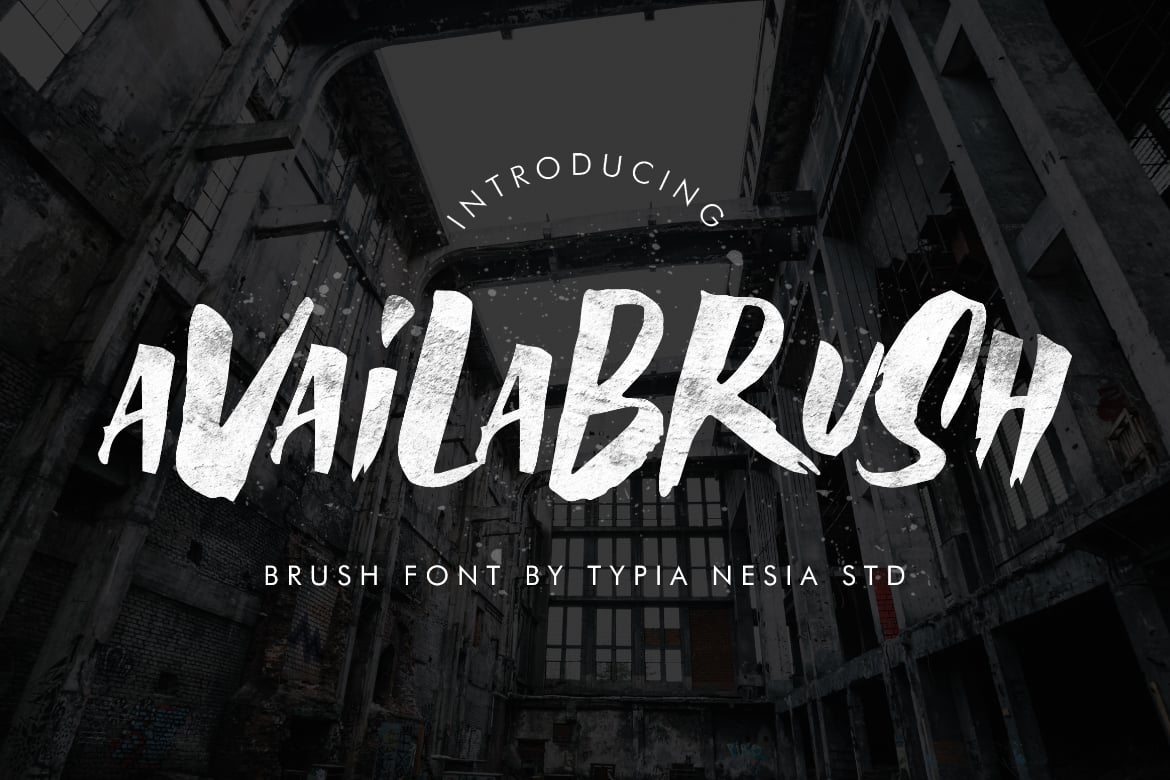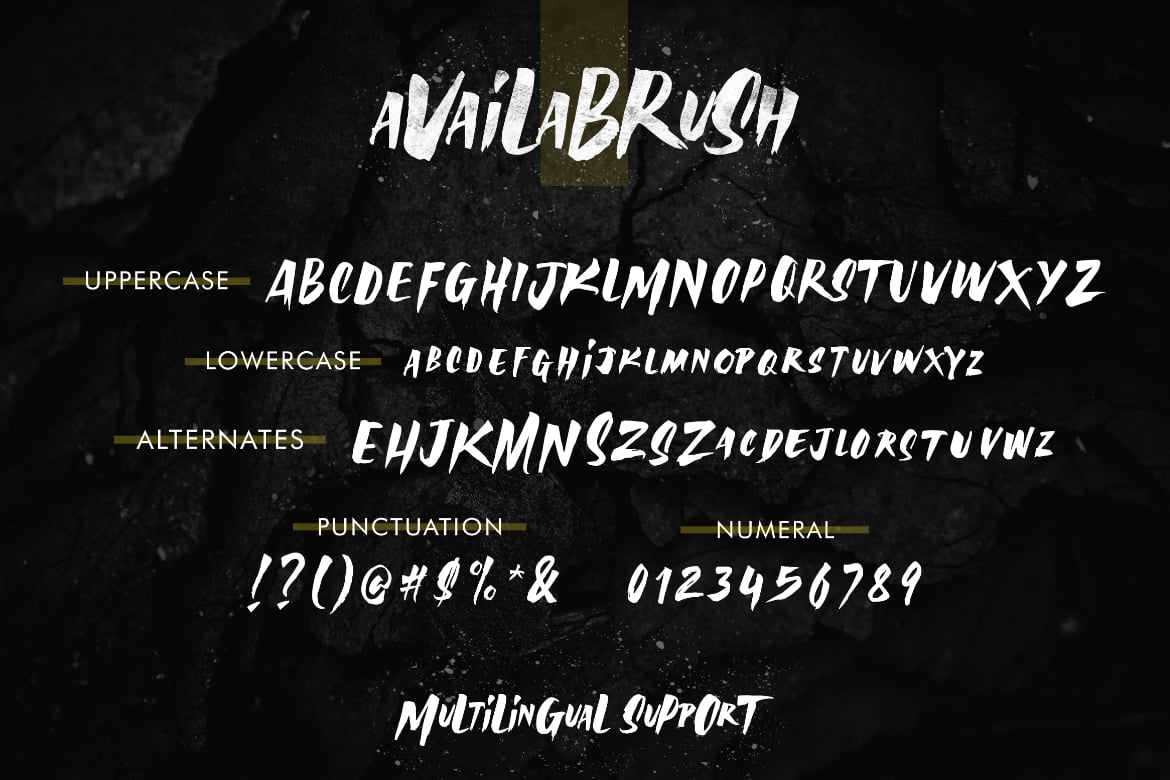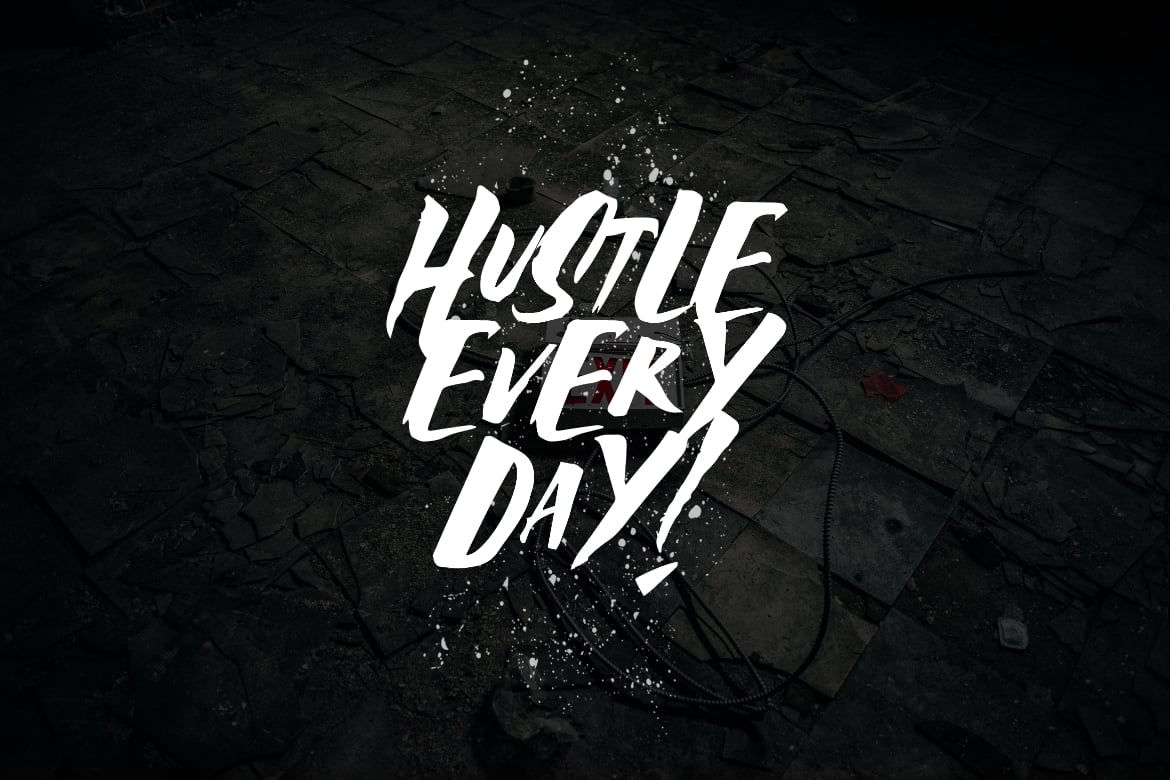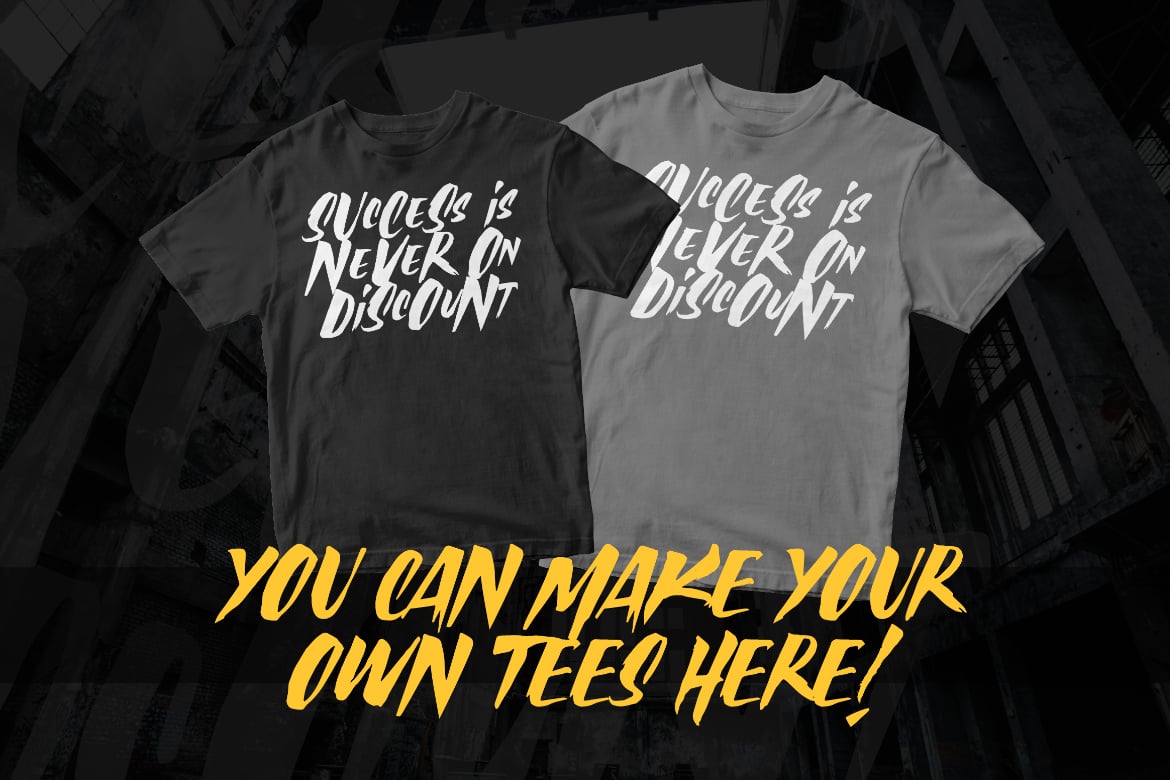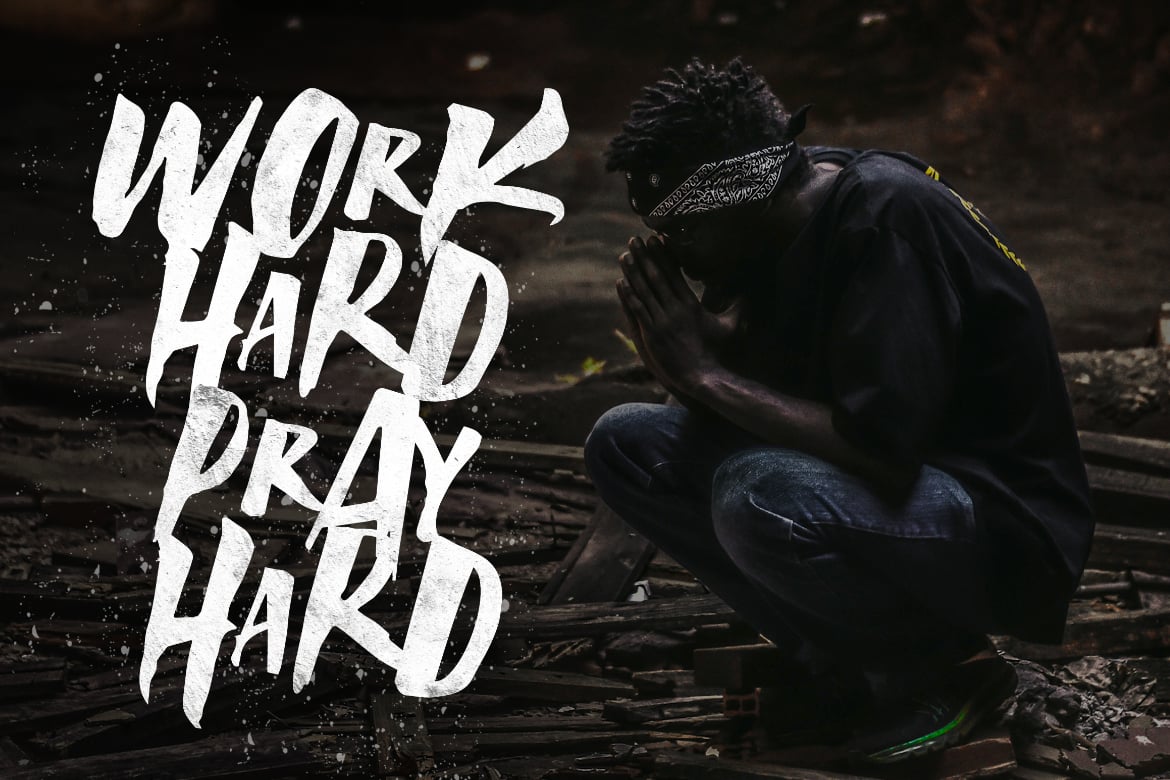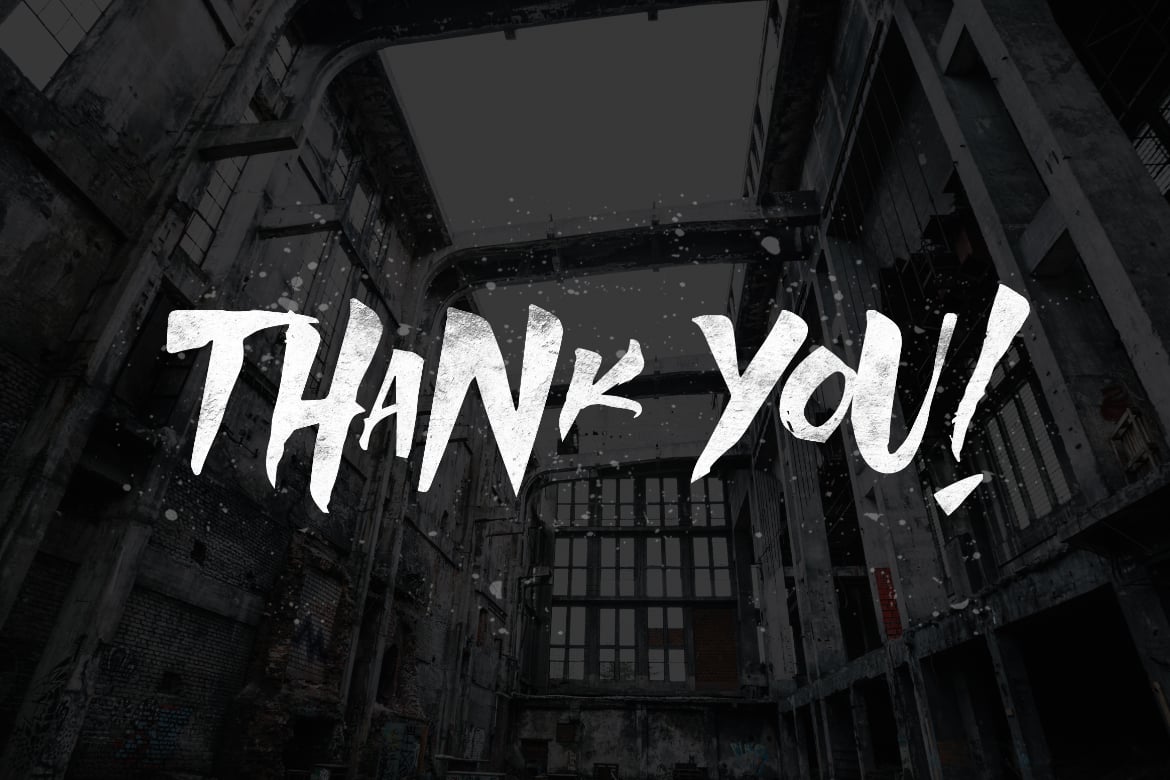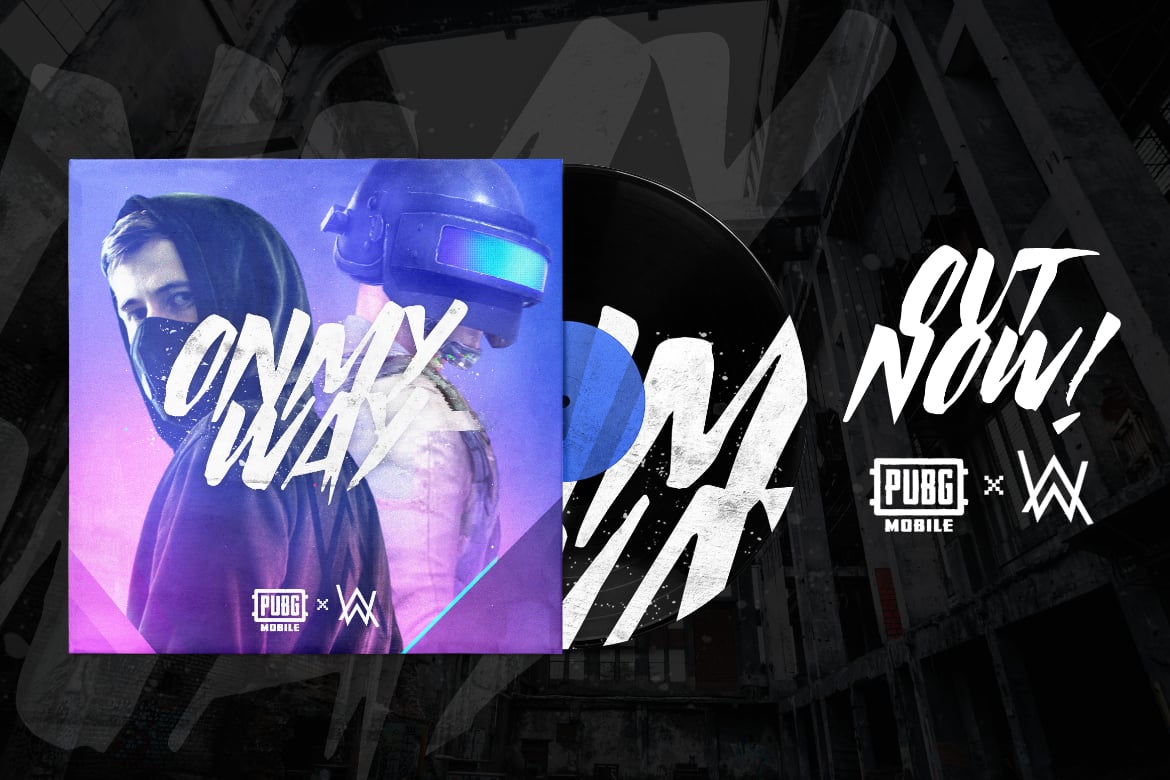
AvailaBrush Brush Font
Availa Brush is a natural hand brushed font. You can mix the uppercase and lowercase and the alternative glyphs to create the cool combination. Work great for any design needs : logo, branding, modern advertising design, logos, poster quote, book / cover Title, editorial design, website / blog, card, custom mug, pillow, t-shirts, and any hand brush needs.
- Includes a range of multilingual characters.